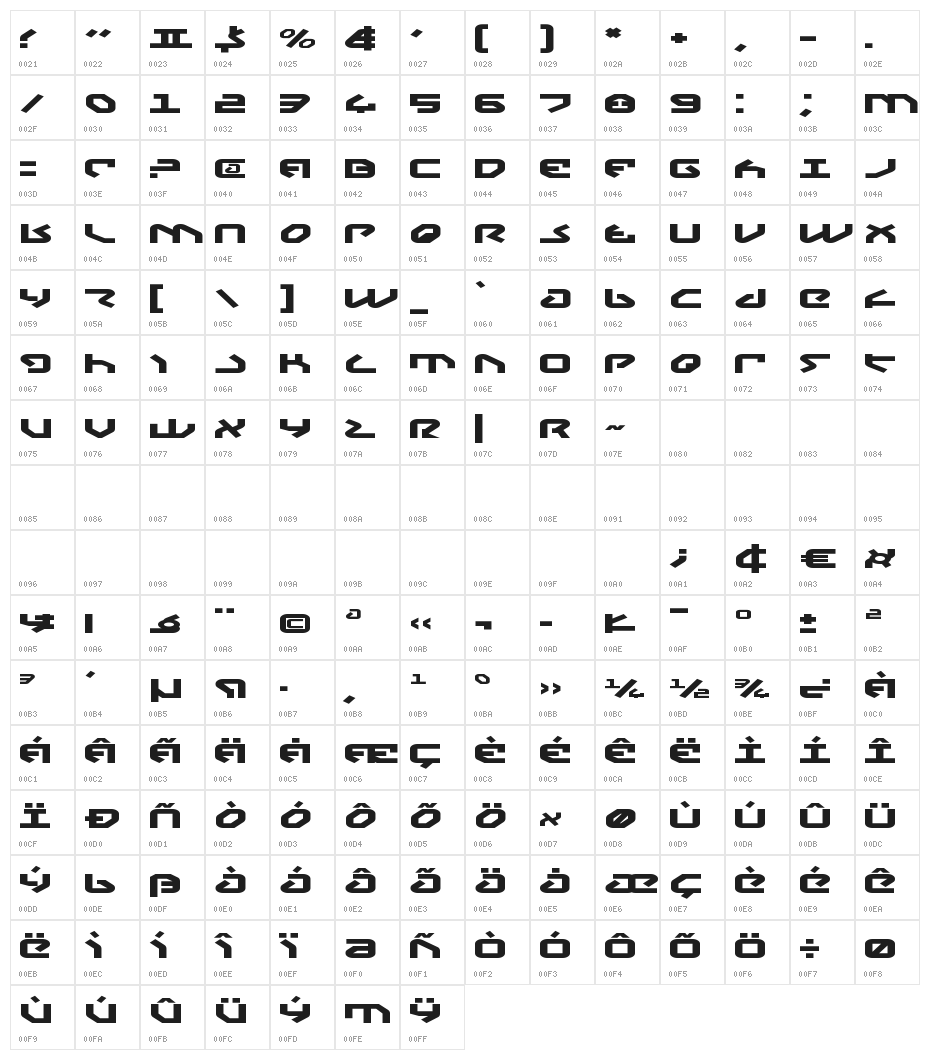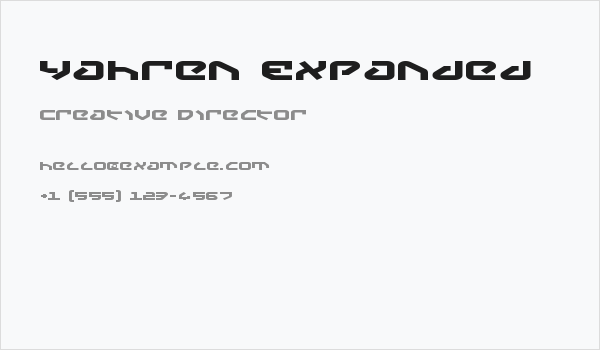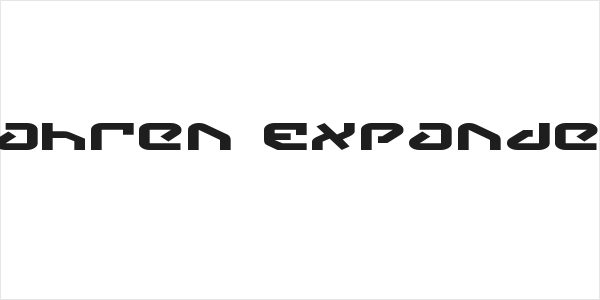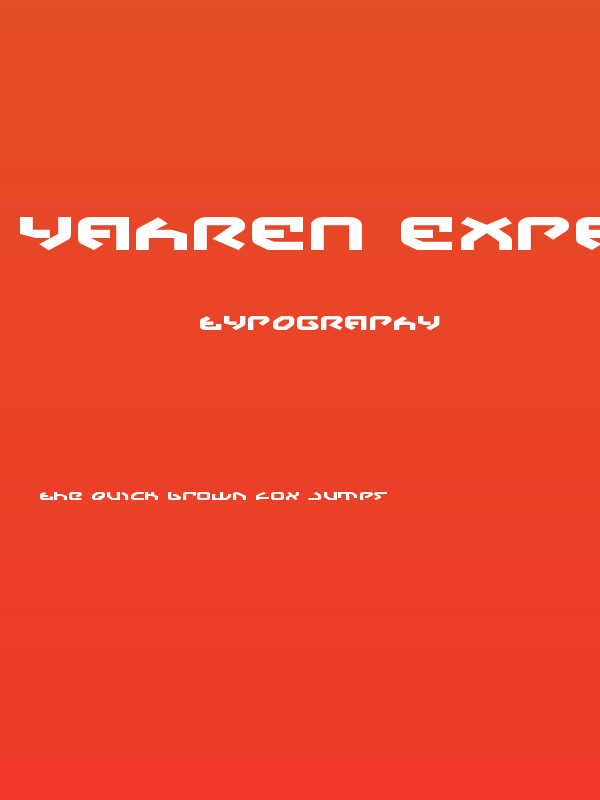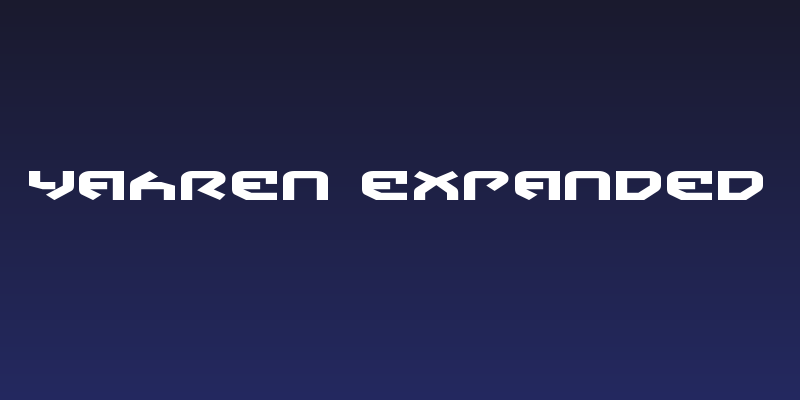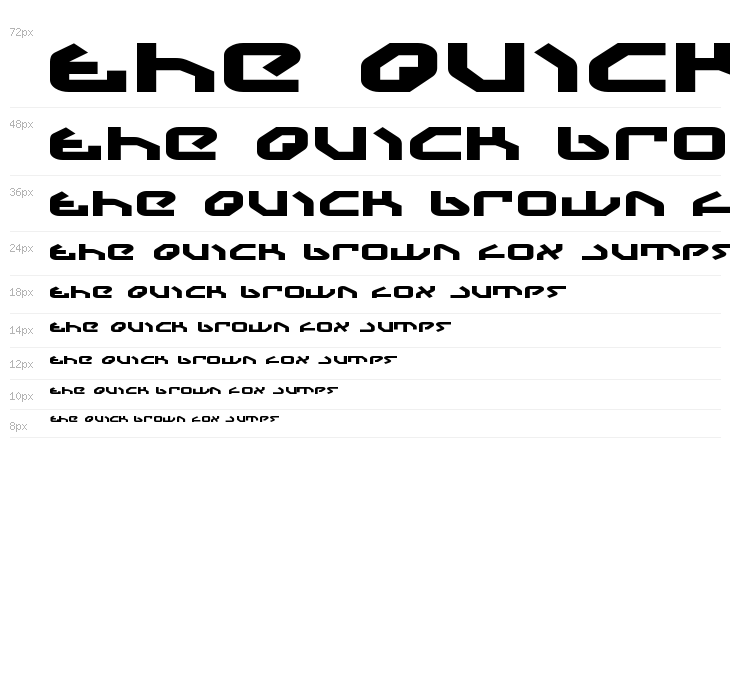
Yahren Expanded Font
Yahren Expanded Description
This font features a bold, futuristic design with angular and geometric shapes. The characters are constructed with sharp edges and a consistent thickness throughout, giving it a strong and impactful appearance. The uppercase and lowercase letters maintain a uniform style, with a slight slant that adds a dynamic feel. Numbers and special characters follow the same design principles, ensuring a cohesive look across all elements. The font's expanded width enhances its readability and presence, making it suitable for attention-grabbing applications.